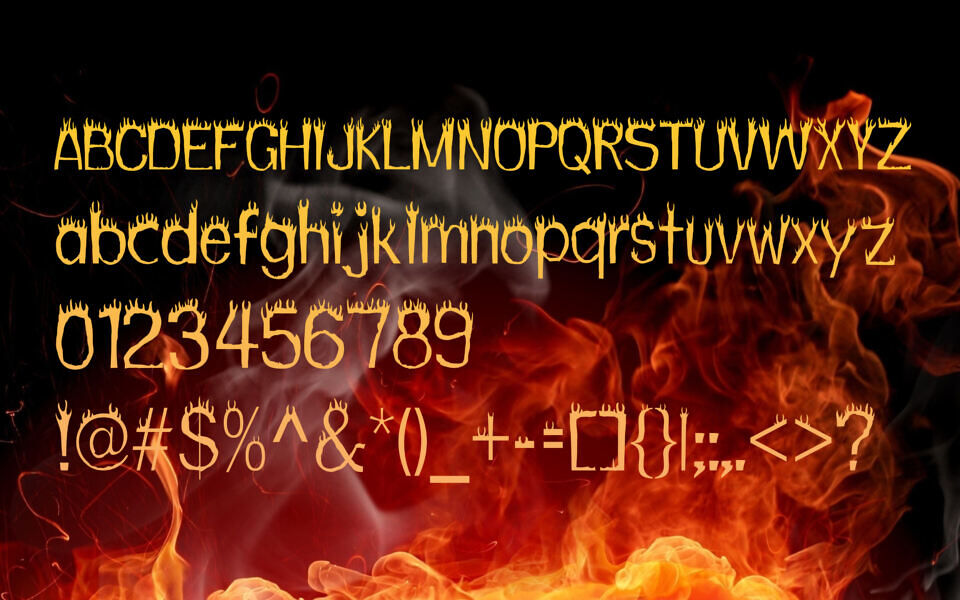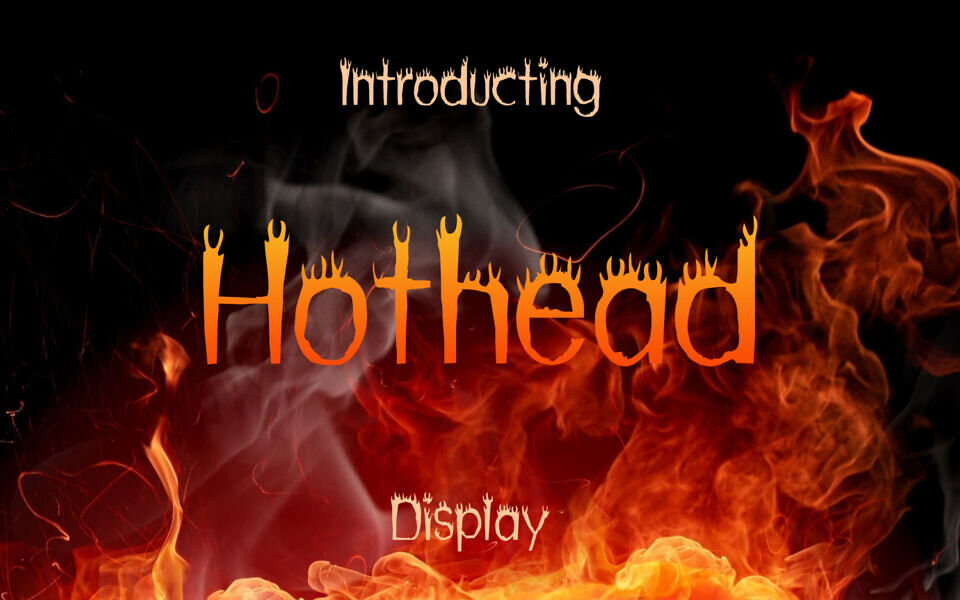
The Hothead font features bold, stylized letters with a unique, jagged appearance. Each character is topped with sharp, flame-like elements that give the text a fiery, intense look. It’s an eye-catching, creative typeface suitable for projects that require an energetic, bold, and slightly edgy feel.
The font also includes numbers and punctuation, maintaining the same dynamic style throughout. It’s perfect for attention-grabbing designs, like posters or logos, that aim for a strong, aggressive aesthetic.